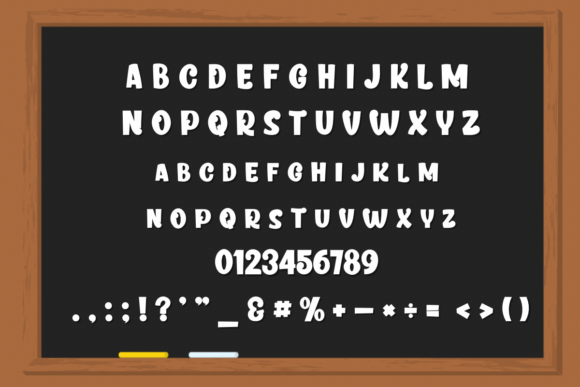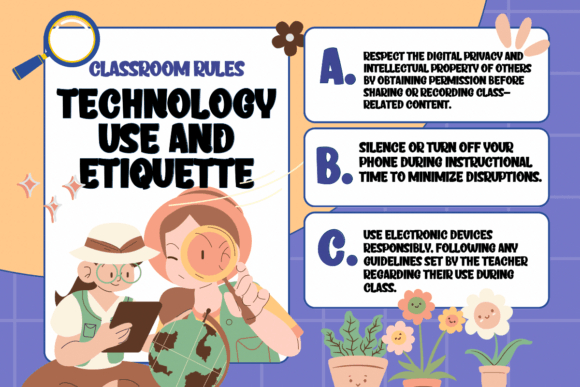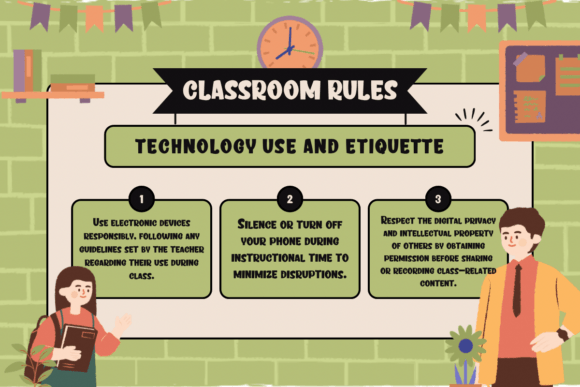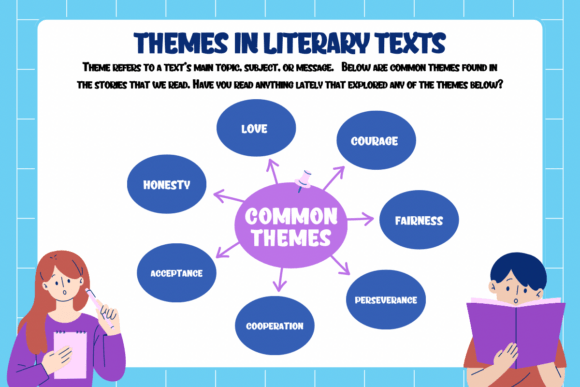
The Ultimate Classroom Charm: 100 Days of School Font
I’ll never forget the time I was working on a project for a local school’s open house event. I was tasked with creating a vibrant bulletin board that would catch the attention of kids and parents alike. As I sat in front of my computer, brainstorming ideas, I realized that the perfect font was the key to making it all come together. That’s when I stumbled upon the 100 Days of School font, and it was love at first sight! 💕
This delightful typeface, inspired by classroom chalkboard writing, instantly brought a playful and cheerful vibe to my design. Its bold, rounded letters seemed tailor-made for celebrating school milestones, educational projects, and kid-friendly designs. In this article, I’ll share my experience with the 100 Days of School font, its features, and how to make the most of it in your designs.
• ✅ Playful and cheerful vibe: The 100 Days of School font is perfect for adding a touch of whimsy to your designs.
• ✅ Bold and rounded letters: The font’s chunky letters are easy to read and make a great impact.
• ✅ Perfect for kid-friendly designs: The font’s innocent and carefree feel makes it ideal for projects targeting children.
• ✅ OpenType features: The font comes with a range of OpenType features, including glyphs and stylistic alternates, to give you more creative control.
While the 100 Days of School font is amazing, there are a few things to keep in mind:
• 🤔 Limited use in formal designs: Due to its playful nature, this font might not be the best fit for formal or corporate designs.
• 🤔 Legibility at small sizes: As with many bold fonts, legibility might be an issue at very small sizes.
A Practical Guide: Using 100 Days of School in Your Designs
The Designer Inspiration Behind 100 Days of School
The 100 Days of School font was created with the intention of capturing the playful spirit of classroom learning. Its designer, inspired by the classic look of chalkboard writing, aimed to create a font that would bring a sense of fun and excitement to educational materials. The result is a typeface that’s both visually appealing and highly versatile.
Font Name 100 Days is School Font
Author Chonada
Q: What is the 100 Days of School font best used for?
A: The 100 Days of School font is perfect for educational projects, kid-friendly designs, bulletin boards, posters, and celebrating school milestones.
Q: Is the 100 Days of School font available in different styles?
A: The 100 Days of School font comes with a range of OpenType features, including glyphs and stylistic alternates, to give you more creative control.